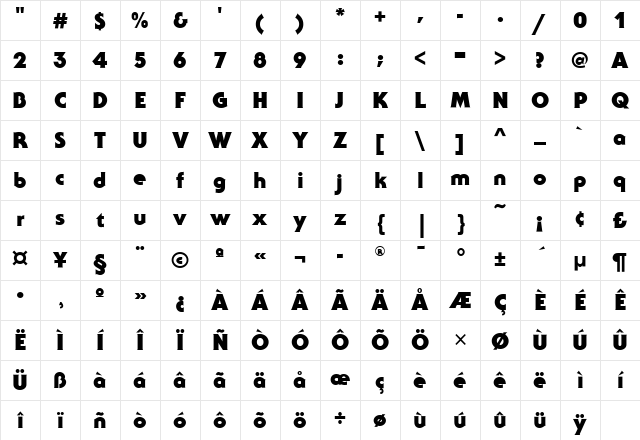
Complete SerifGothicHvyITC Black glyph index. Displaying only characters natively supported by SerifGothicHvyITC Black font.
SerifGothicHvyITC carries the refined structure of traditional serif typography, with bracketed terminals and considered proportions that communicate credibility and craft.
A reliable choice for luxury brands, academic publishing, editorial headers, and credibility-focused identities.
Font Pairing: Pairs naturally with a modern sans-serif for UI elements and captions, creating a classic editorial contrast.
Pro Tip: Use SerifGothicHvyITC for editorial body copy and considered headline work. Pair with a neutral sans for UI elements or captions to create a classic hierarchy.